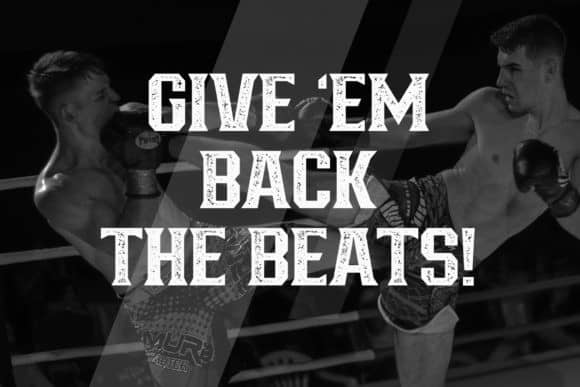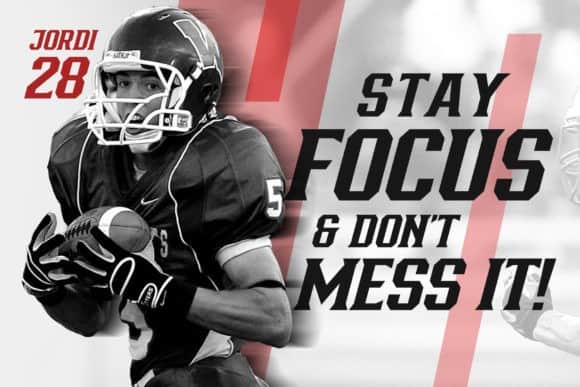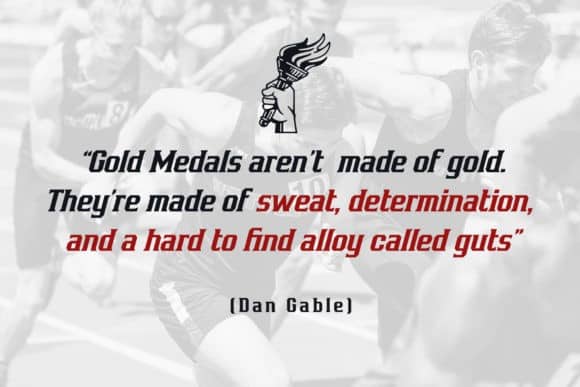
Bronzier Display Font is a modern serif font family. Made from font designer named Arterfak Project. This font offers 8 different styles and can meet your needs in innovative pursuits with different character designs in its structure. It has a timeless structure where you can create your modern-elegant or classic design alternatives. It’s designed with a bold and sharp pencil, emphasizing its raw and sincere look!